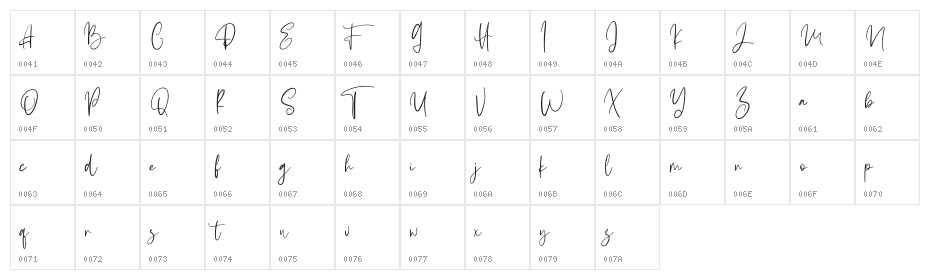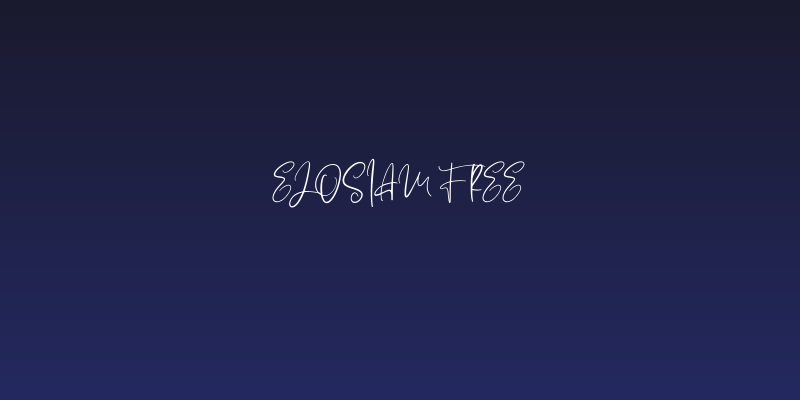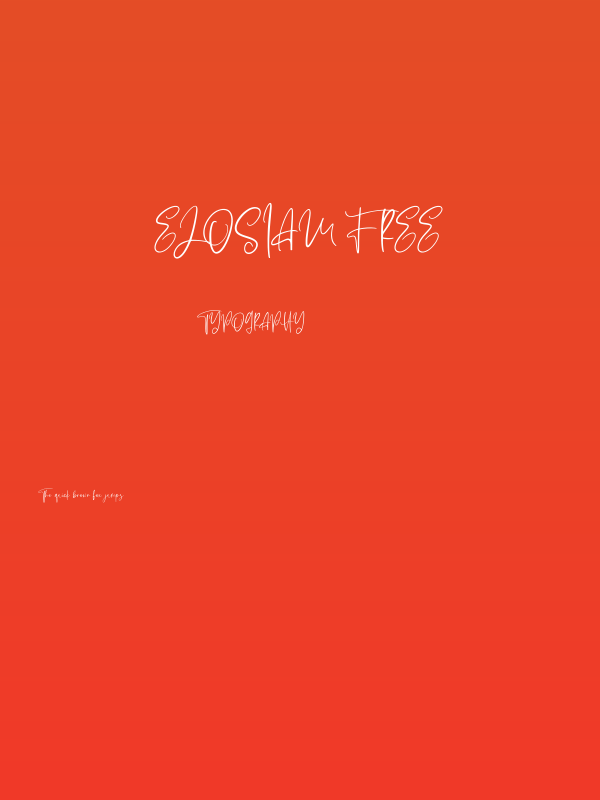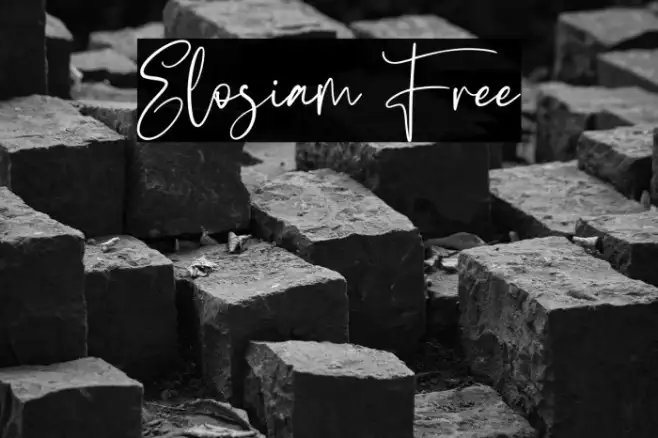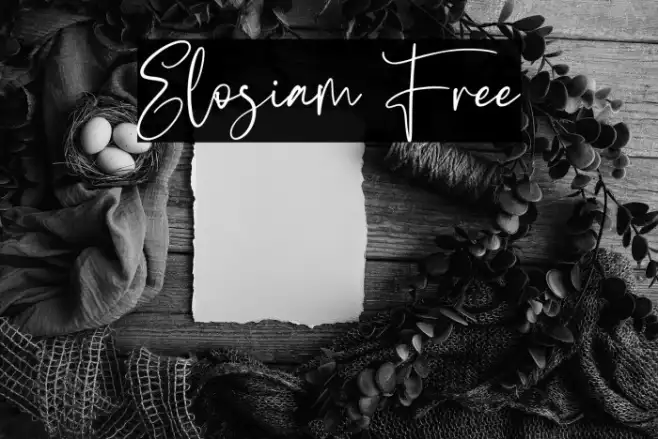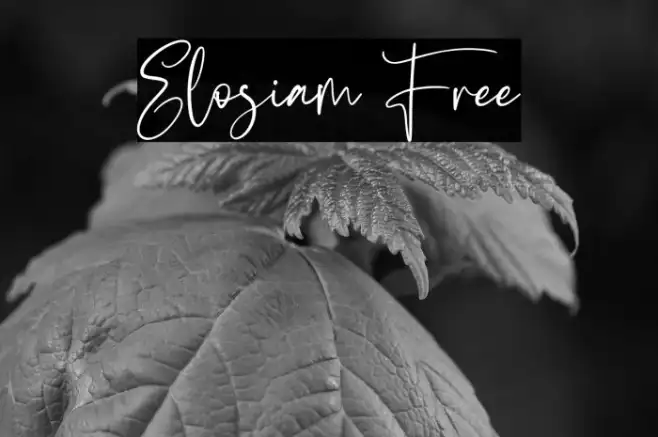
Elosiam Free Font
Elosiam Free Description
This font exudes a modern and elegant handwritten style, characterized by its fluid and graceful strokes. The uppercase letters are bold and dynamic, with a distinctive flair that adds personality to each character. The lowercase letters maintain a consistent flow, enhancing readability while retaining an artistic touch. The numerals and special characters are crafted with the same attention to detail, ensuring a cohesive look across all text. This font is perfect for projects that require a personal and sophisticated touch, such as invitations, branding, and social media graphics. Its unique style makes it stand out, offering a blend of creativity and professionalism.
| Proposed Projects | Ideal for invitations, branding, social media graphics, and personal projects. |